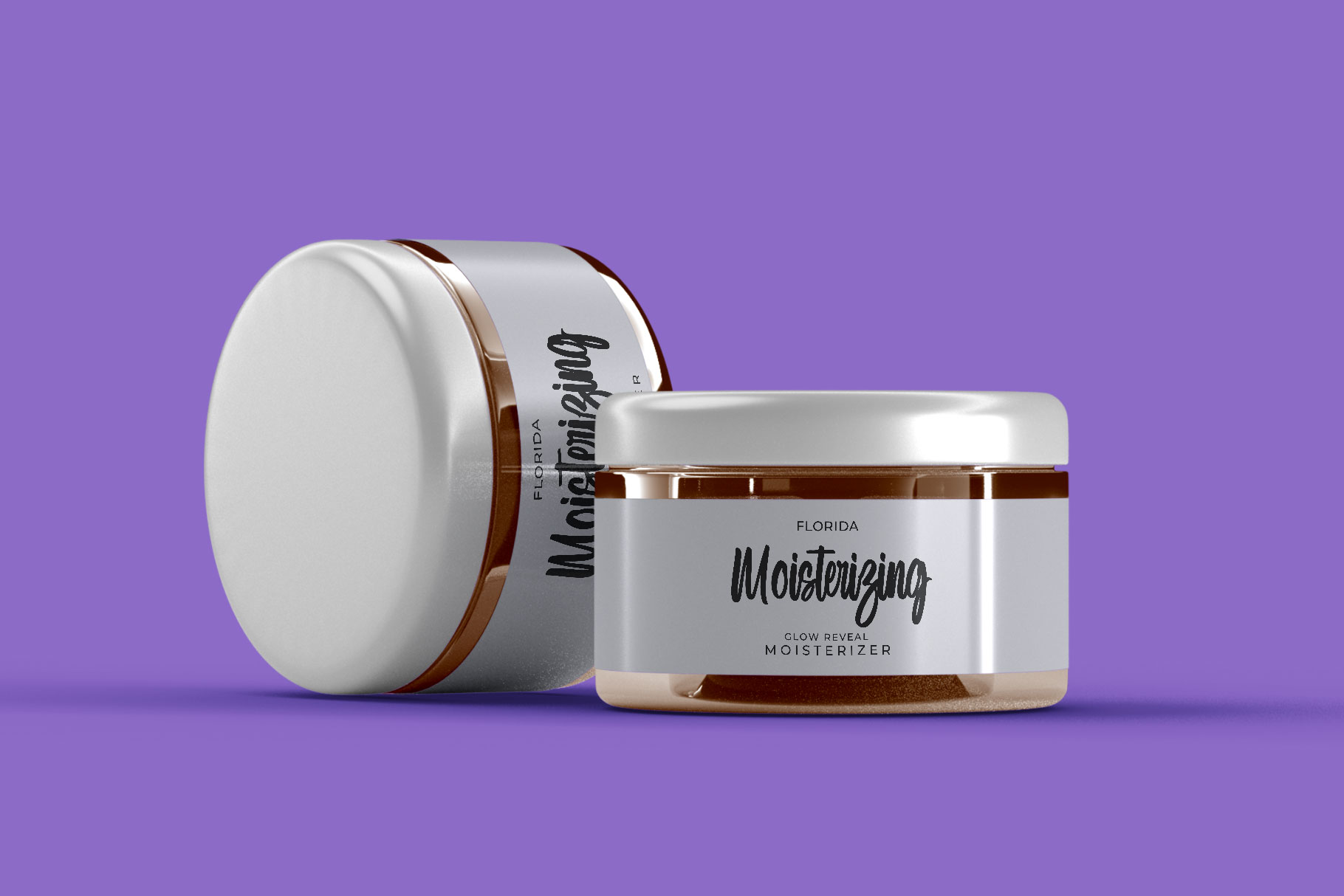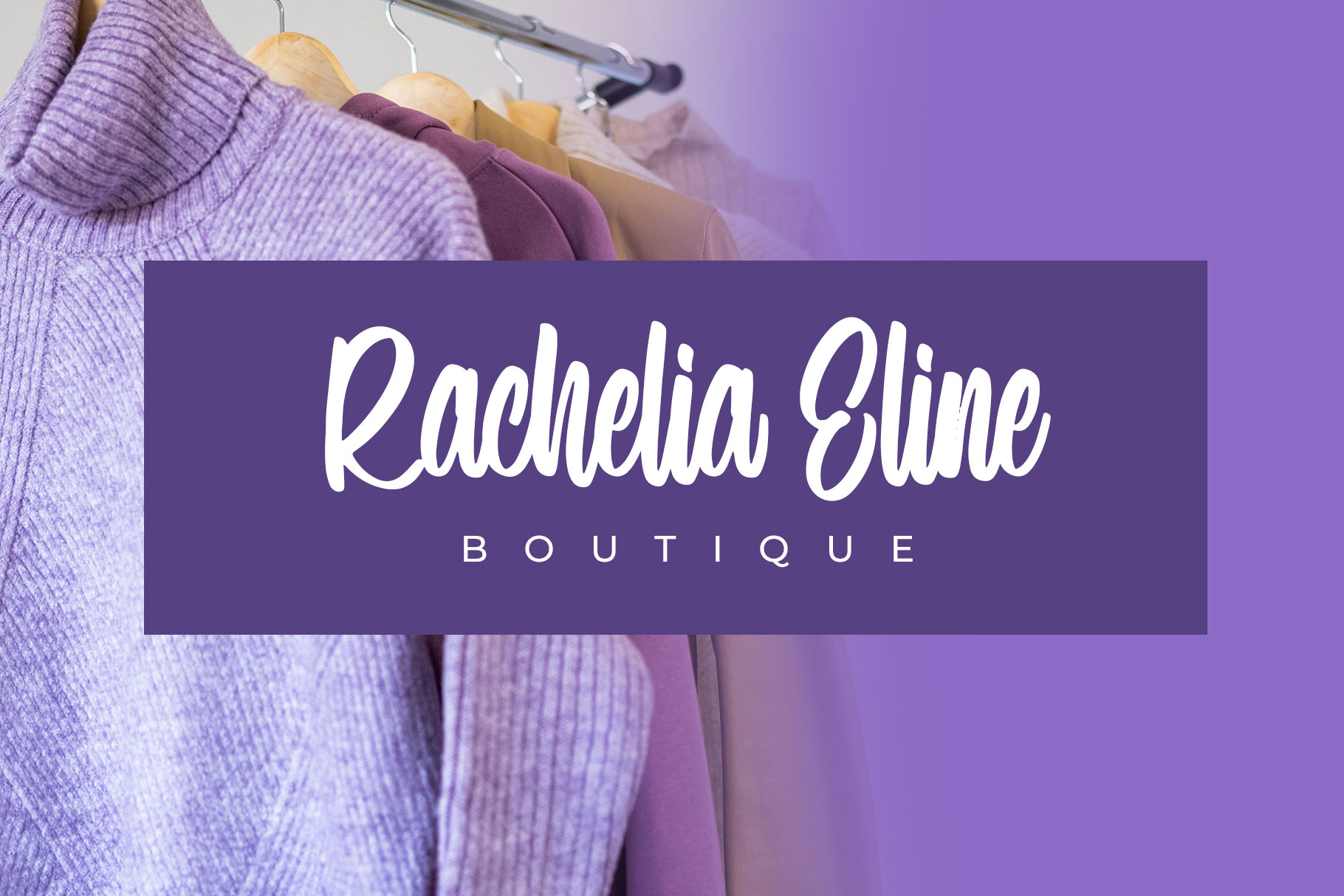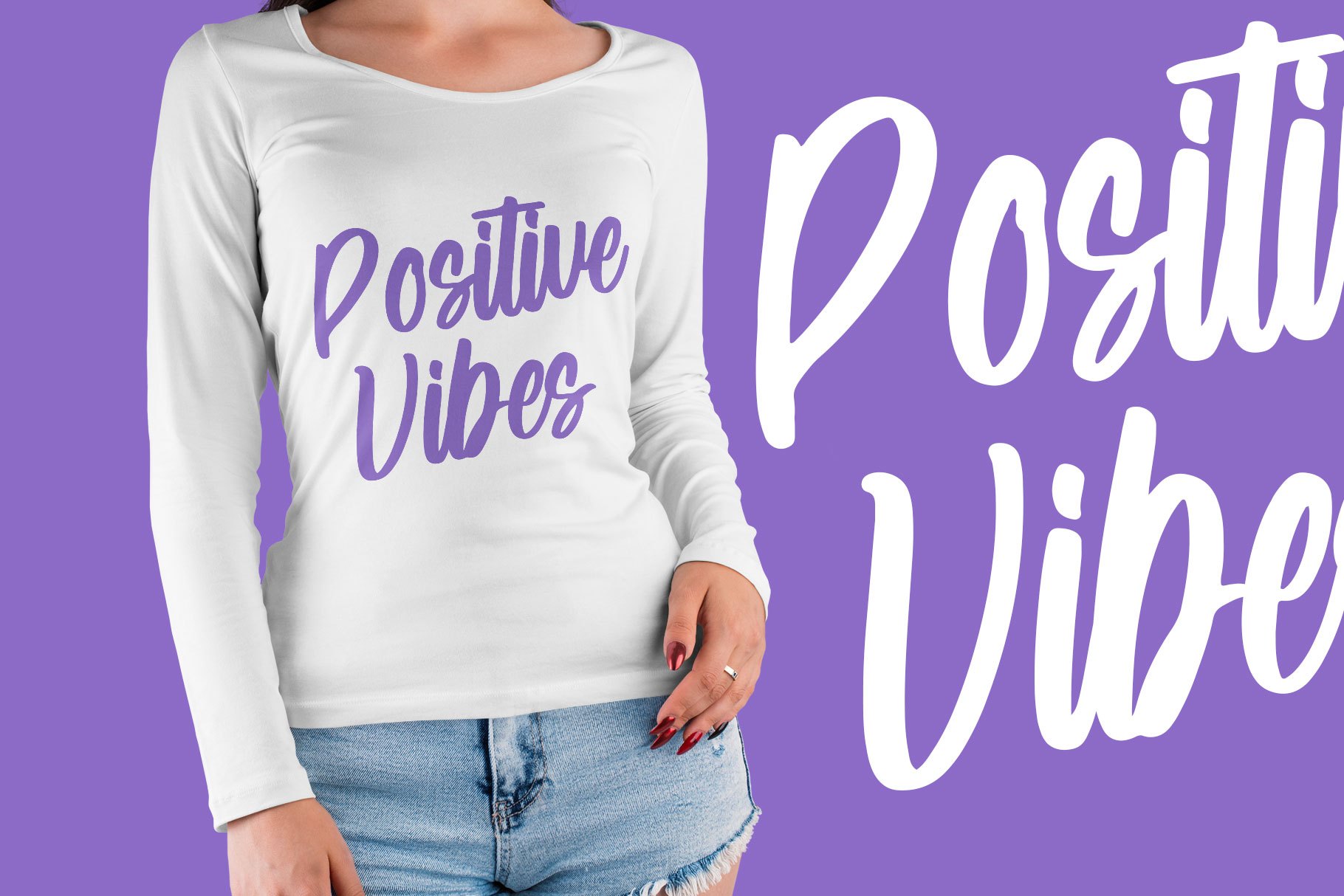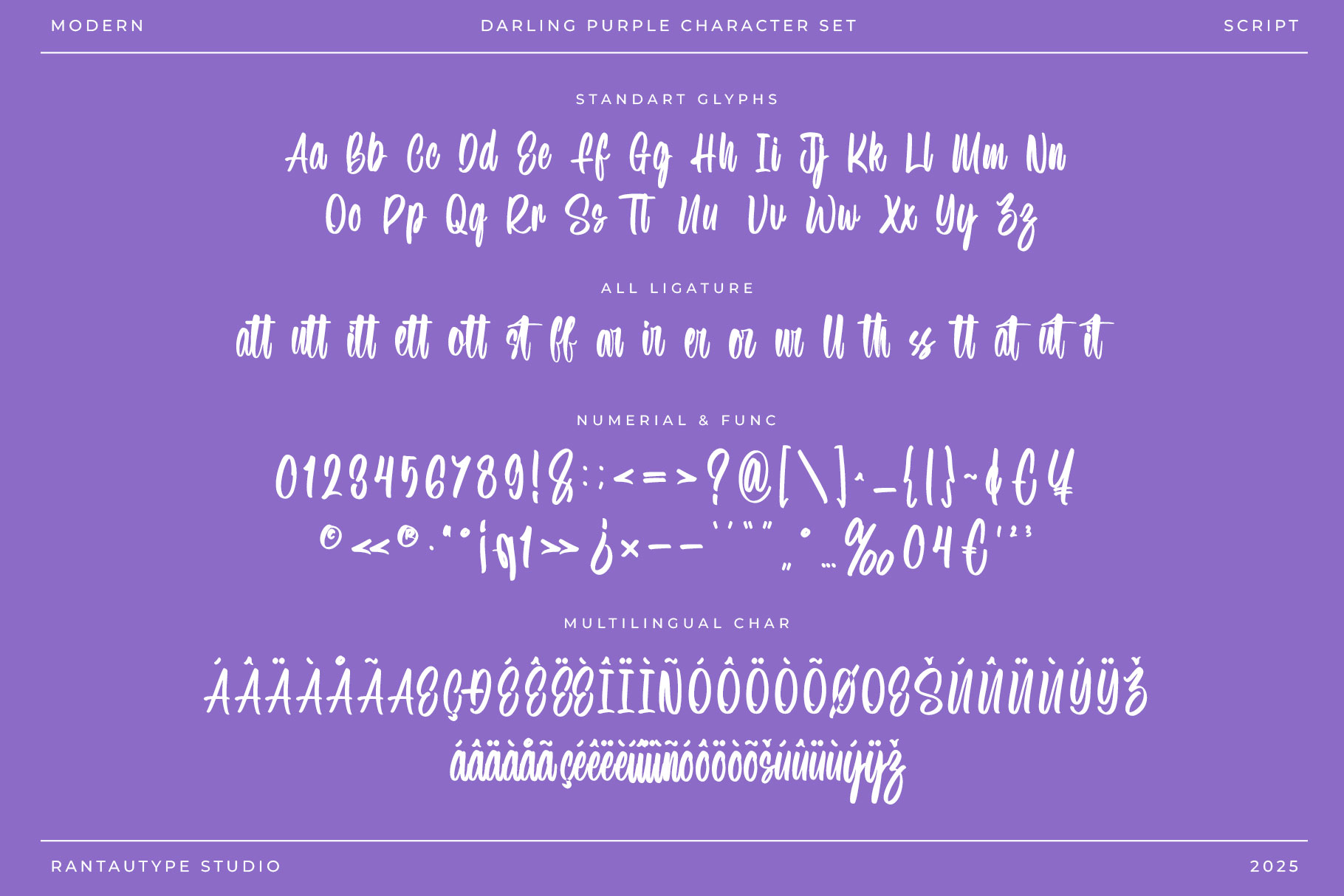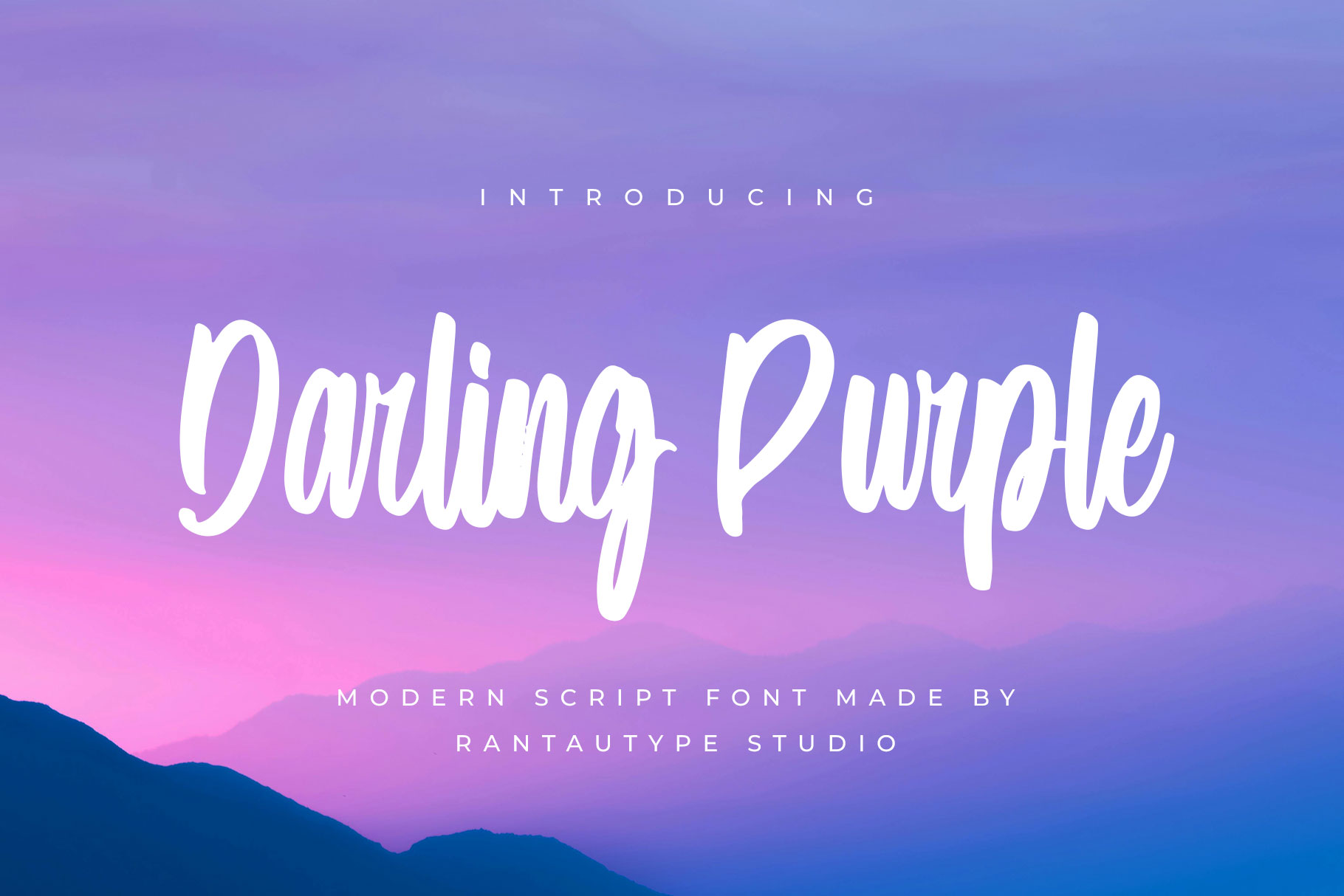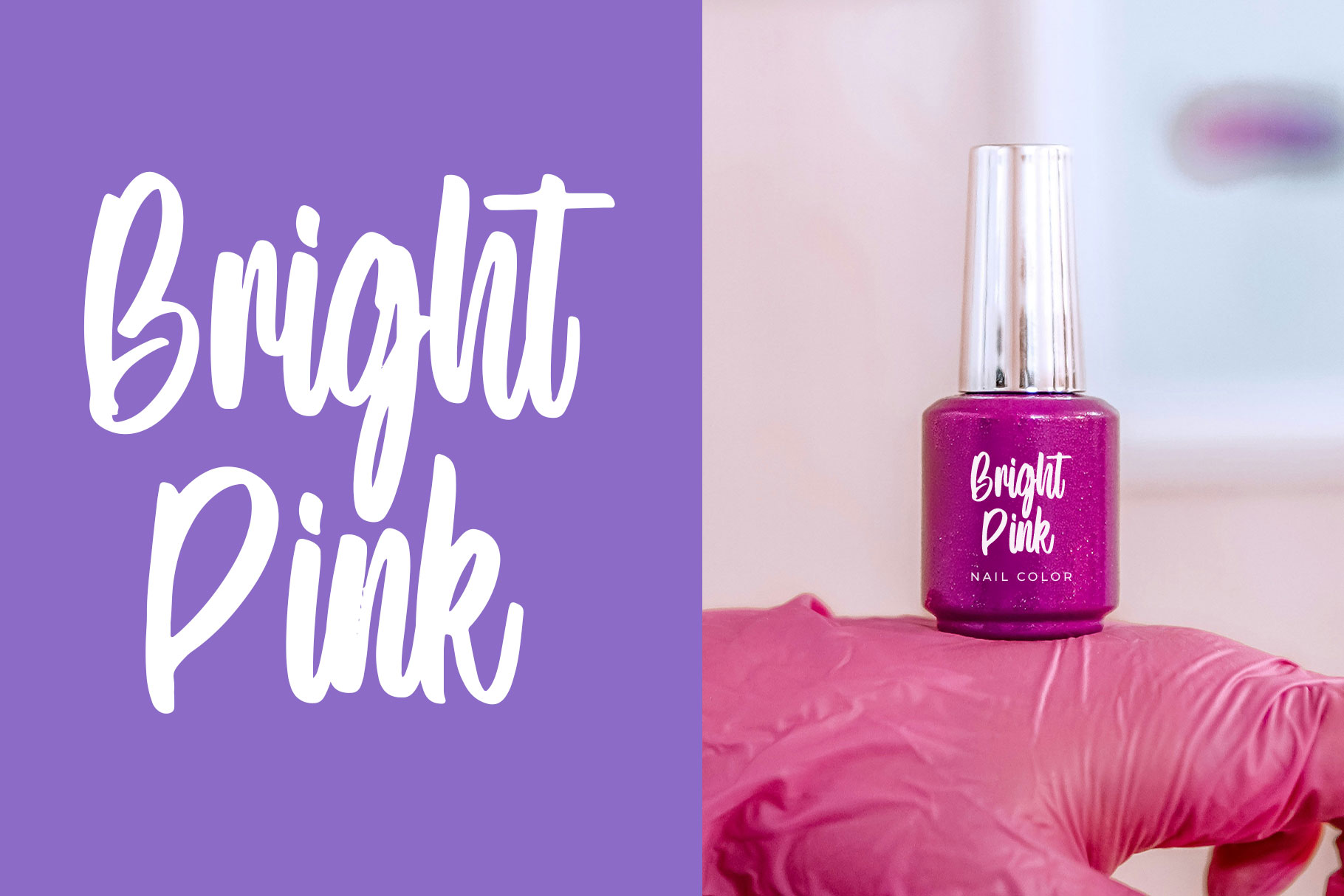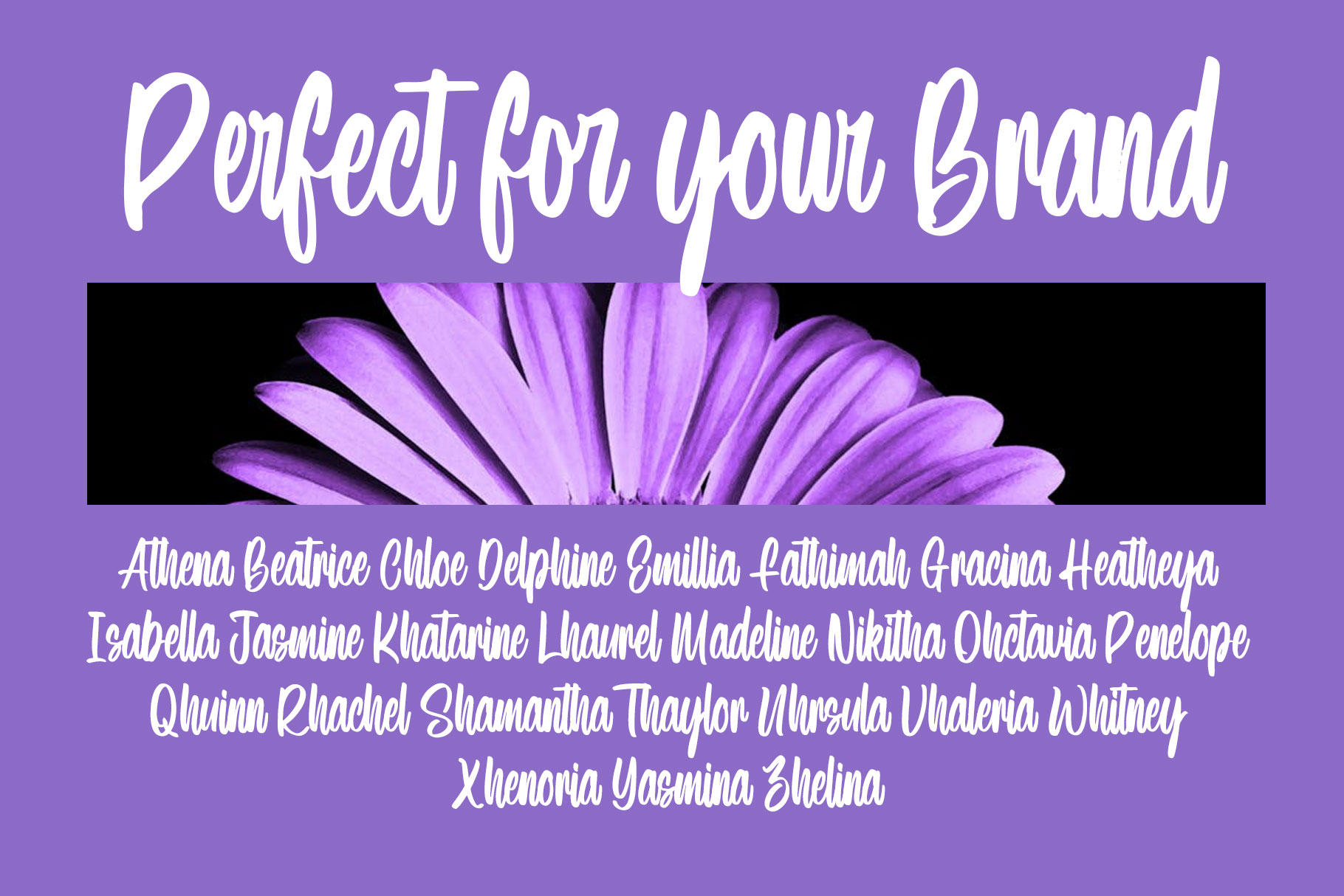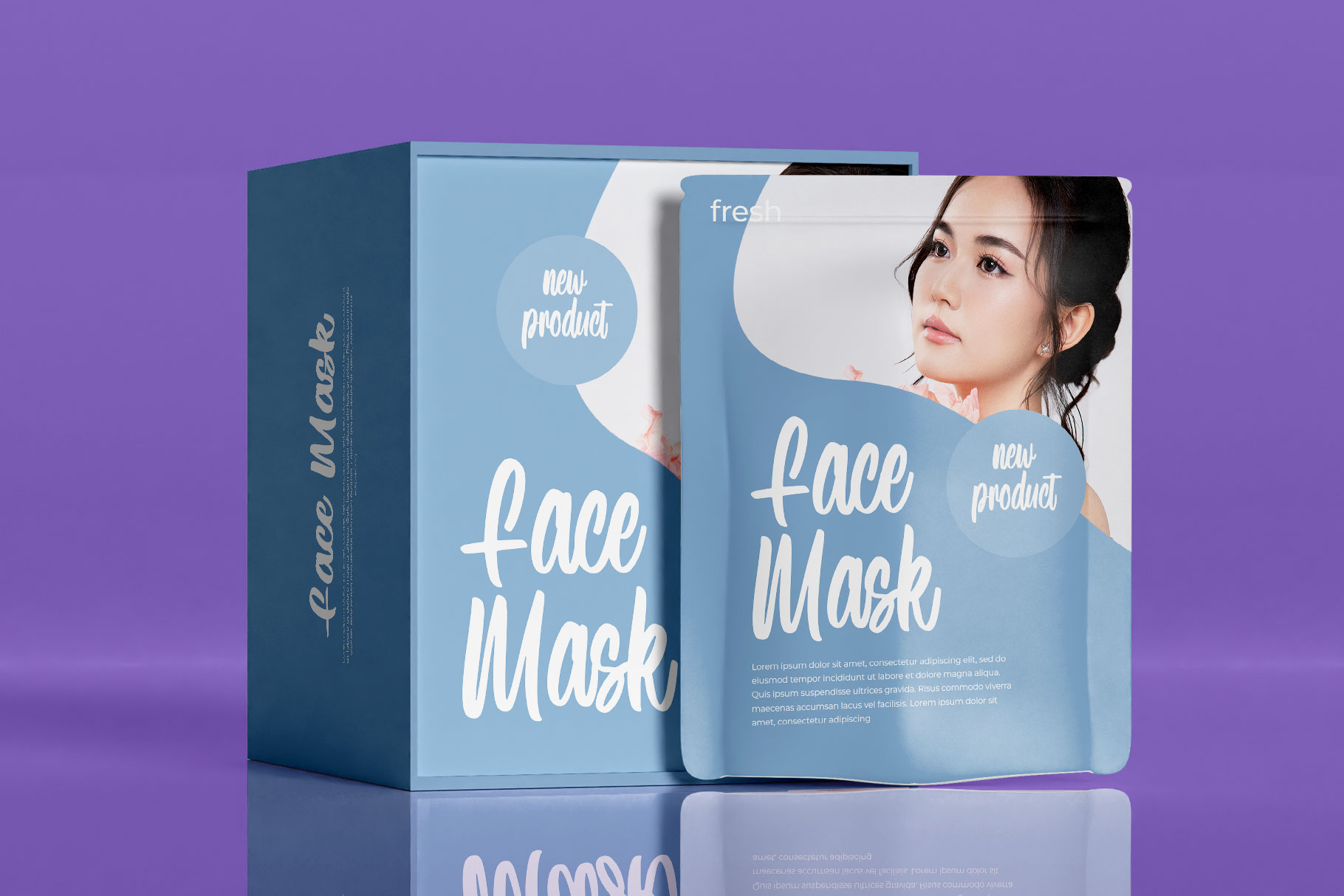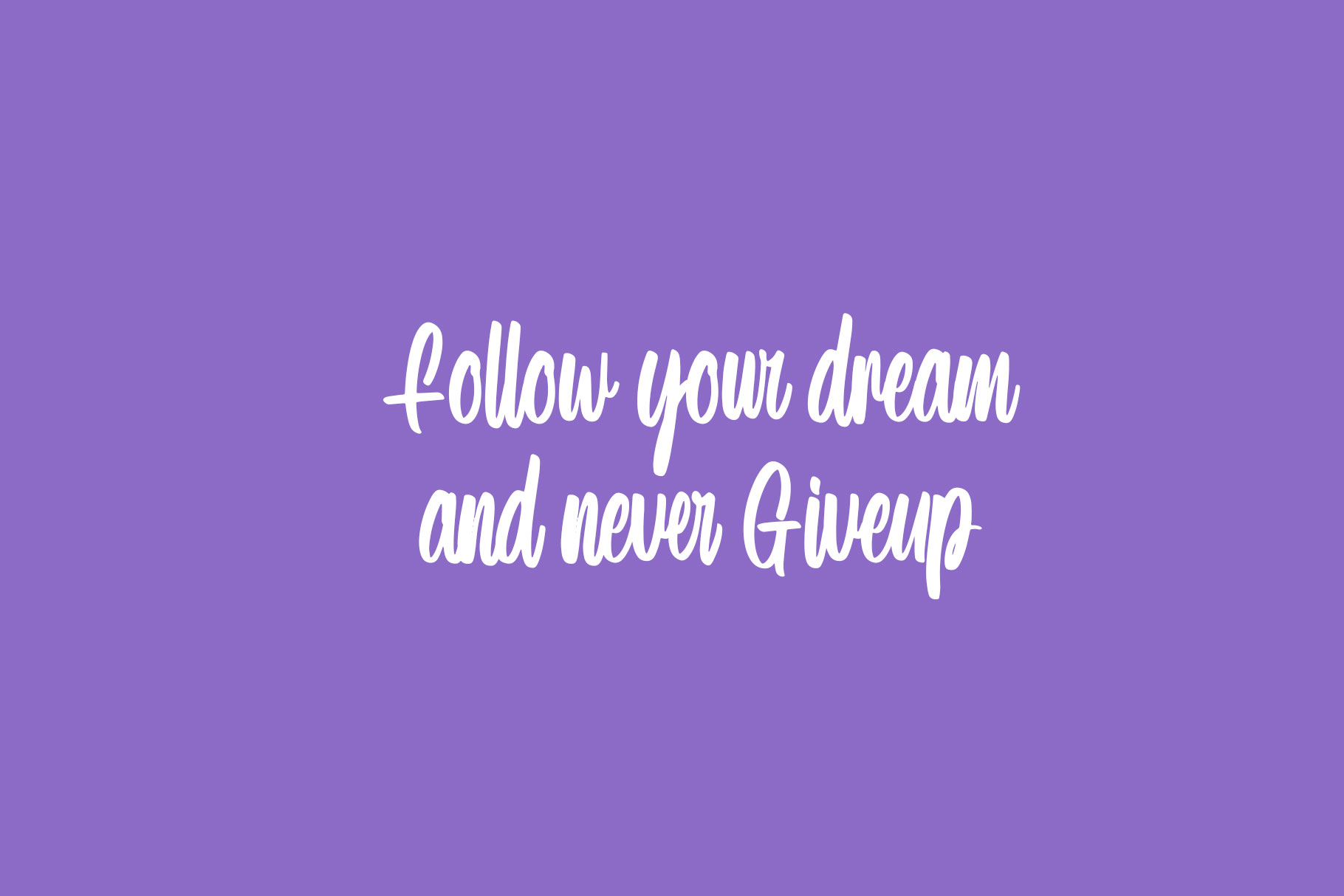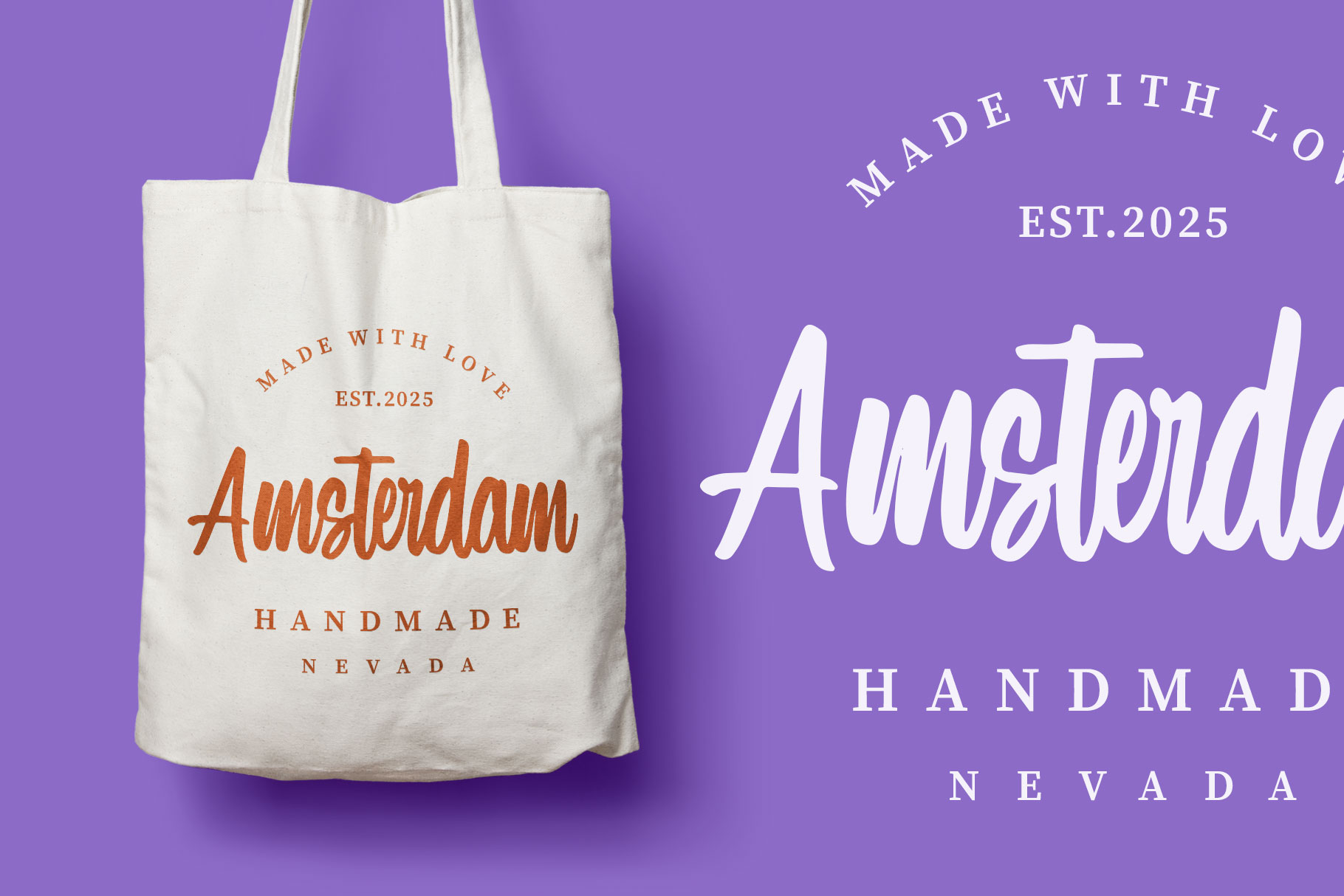
Darling Purple Modern Script Font
Darling Purple is modern script font made by rantautype studio. Darling Purple is a perfectly choice for any creative endeavor, chic, lifestyle design such as logotype, advertisements, watermark on photography, stationery, branding project, display and magazine, invitation, corporate brand, product design, label, business project and many other project with modern touch.